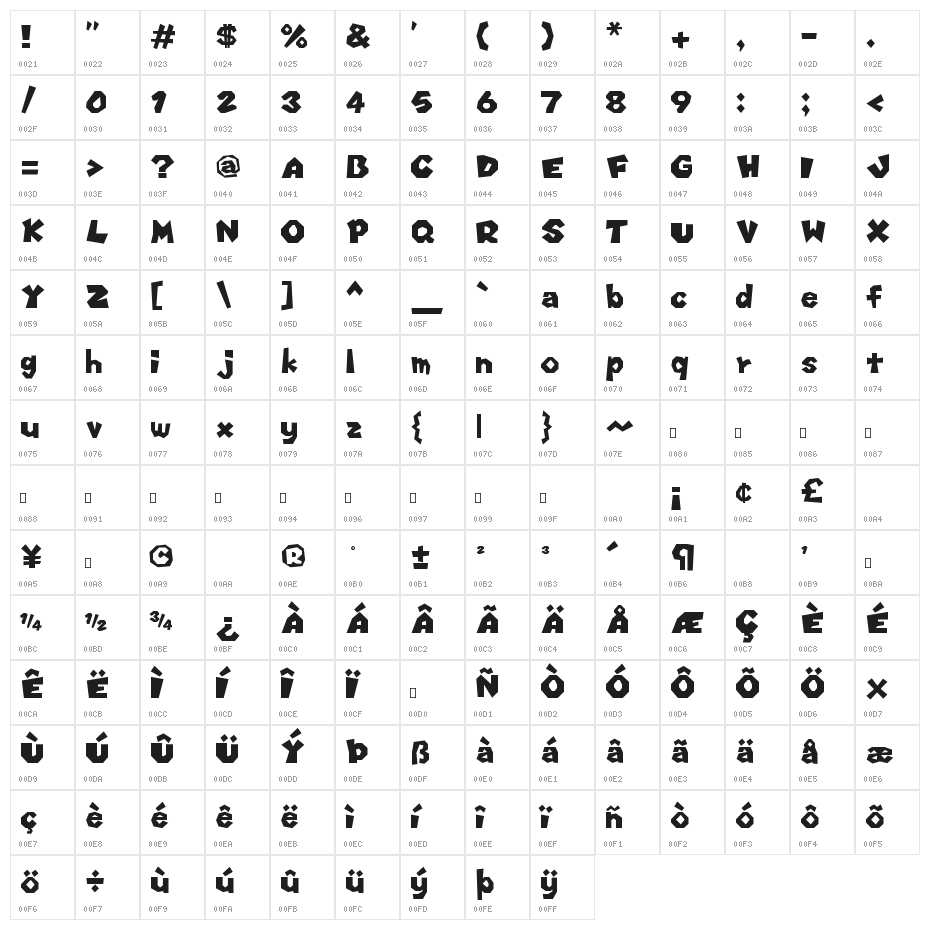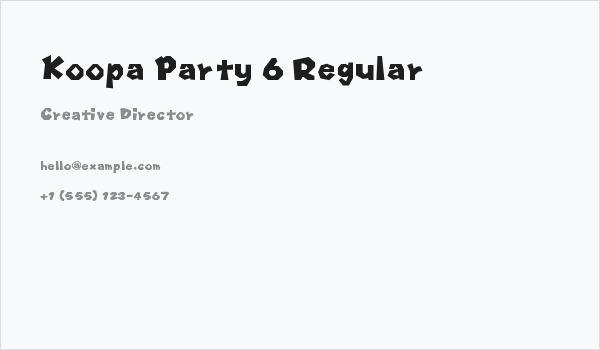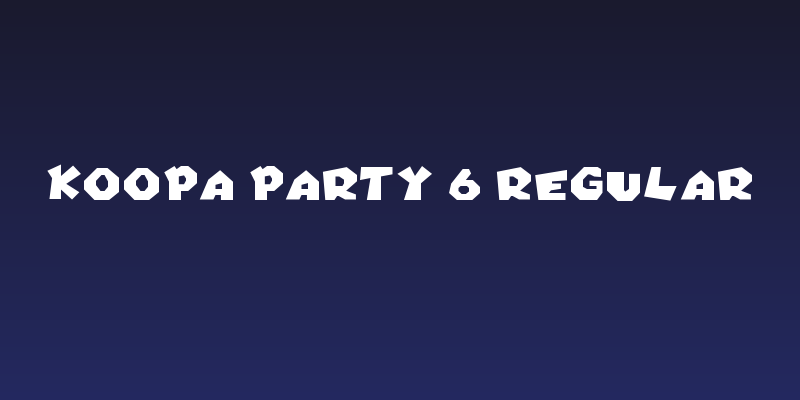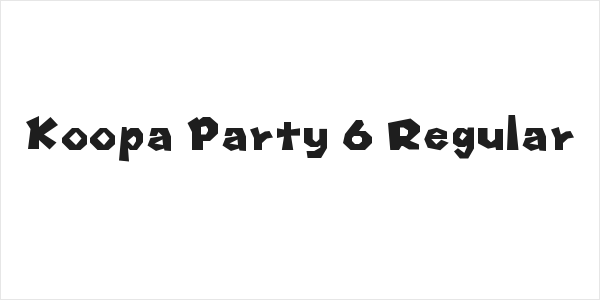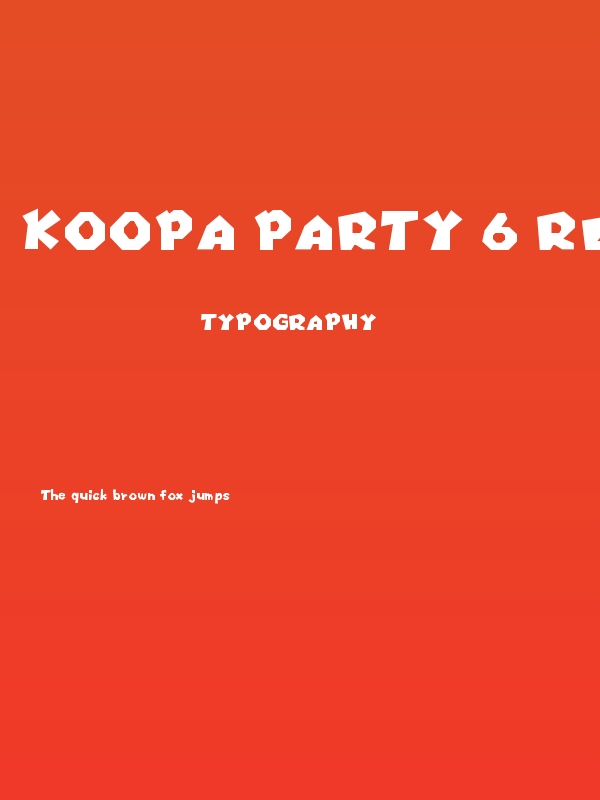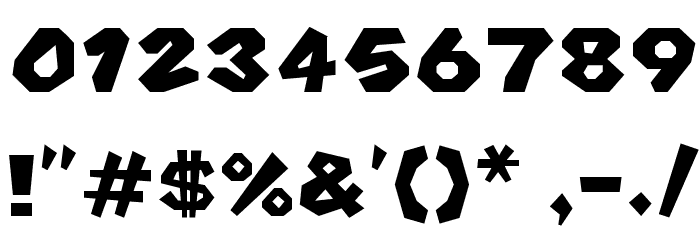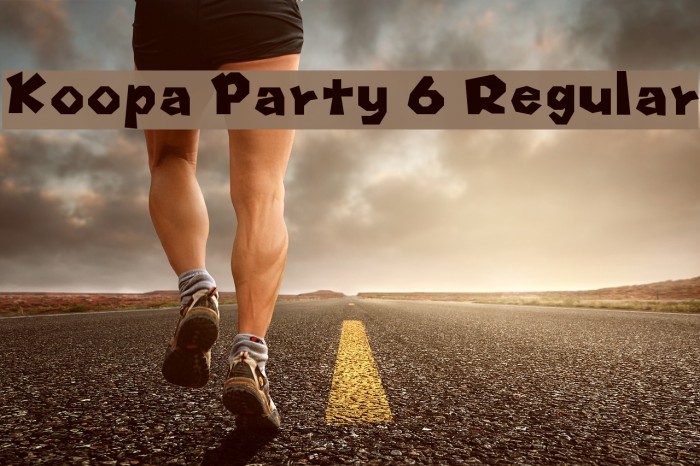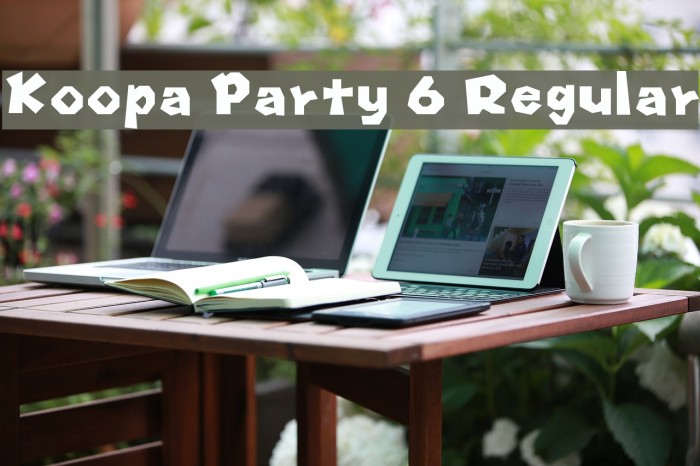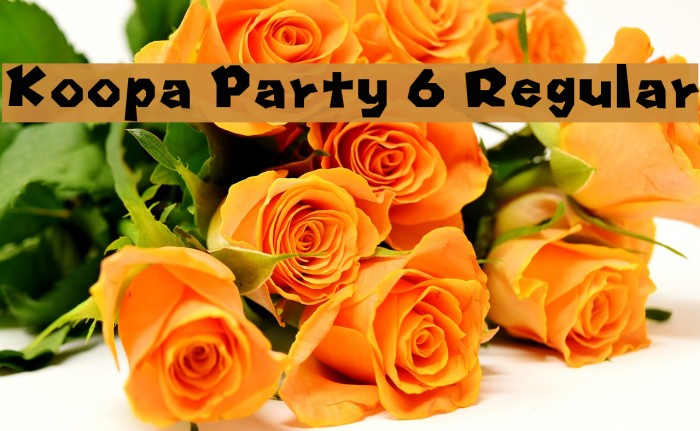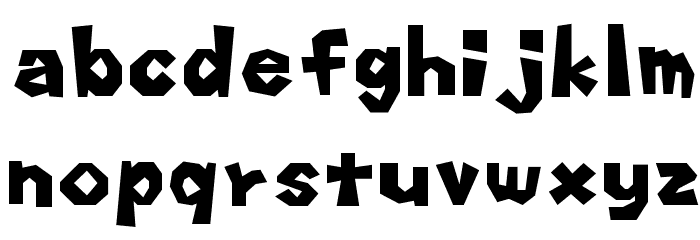
Koopa Party 6 Regular Font
Koopa Party 6 Regular Description
This font features a playful and bold design with a distinct geometric and angular style. Each character is crafted with sharp edges and irregular shapes, giving it a dynamic and energetic appearance. The uppercase and lowercase letters maintain a consistent style, while the numbers and special characters complement the overall theme. The font's unique structure makes it stand out, ideal for projects that require a fun and eye-catching look.
| Overall Style | Playful, Energetic |
| Proposed Projects | Perfect for video game titles, children's book covers, party invitations, and any creative project that needs a lively and bold typeface. |